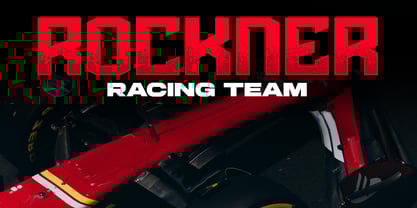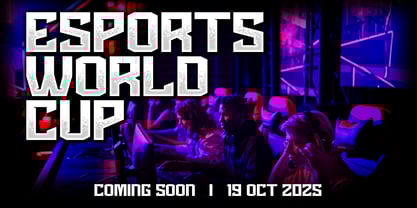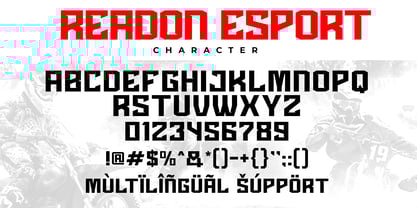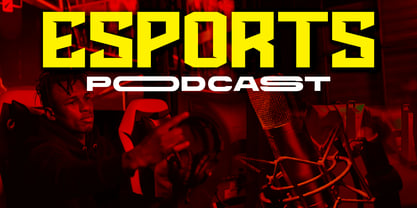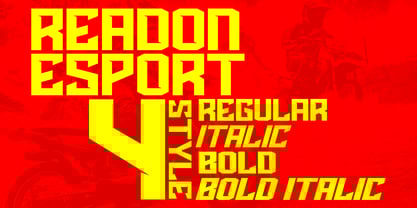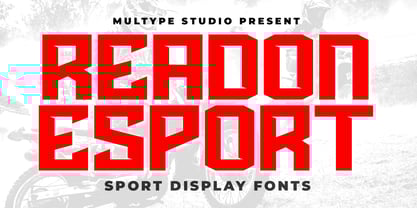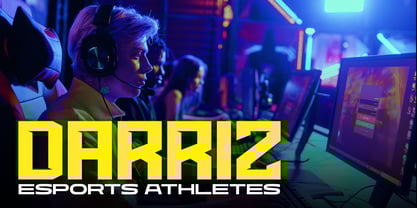
Readon Esport
by Multype Studio
The Readon Esport Font Family was designed by Mulia Yanto and published by Multype Studio. Readon Esport contains 4 styles and family package options. More about this family
Readon Esport is a bold and dynamic racing-inspired display font designed for speed, power, and precision. Featuring sharp edges, geometric letterforms, and an aggressive stance, this sport typeface delivers a strong visual impact that perfectly captures the adrenaline and energy of motorsport design. Readon Esport is built for performance—both on and off the track. Ideal for racing logos, sports jerseys, automotive branding, posters, flyers, gaming titles, and merchandise, this modern display font adds a sense of motion and intensity to any creative project. Its powerful structure and clean lines ensure maximum readability while maintaining a striking, industrial look. Readon Esport: All Caps, Numbers & Symbols, Works on PC / Mac, Simple installations, Accessible in the (Adobe Illustrator, Adobe Photoshop, Adobe InDesign, even work on Microsoft Word) , PUA Encoded Characters, Fully accessible without additional design software, and Multilingual support. Thank you for your purchase! Hope you enjoy with our font!
Designers: Mulia Yanto
Foundry: Multype Studio